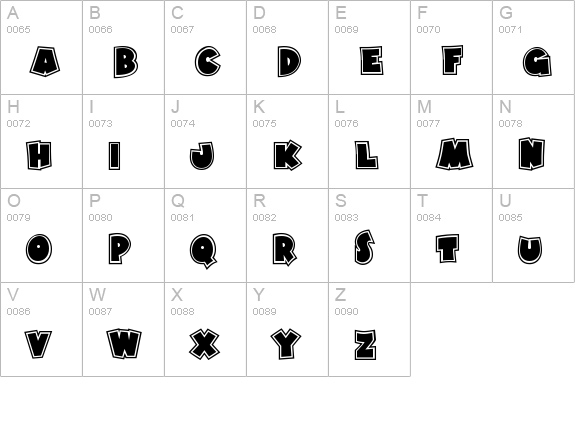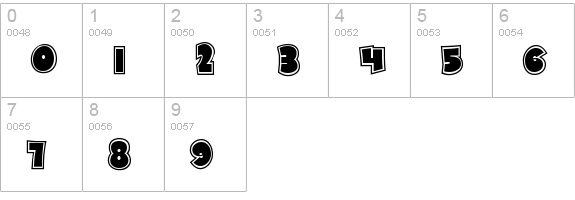
Hot Mustard BTN Poster font is a striking and bold typeface that exudes energy and modernity. Its sharp angles and strong lines make it perfect for grabbing attention and making a statement. This versatile font is ideal for a variety of design projects, from posters to branding to packaging. Whether you're looking to add a touch of edginess to your designs or create a bold headline, Hot Mustard BTN Poster font has got you covered. What's even better is that this font is available for free download at FontsMarket.com. Now you can easily access this eye-catching font and elevate your designs without breaking the bank. Don't miss out on the opportunity to add Hot Mustard BTN Poster font to your font library today!